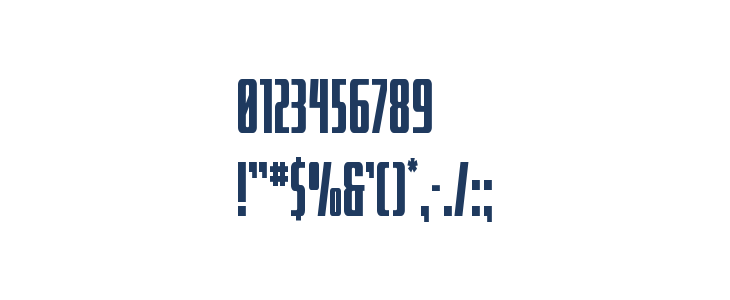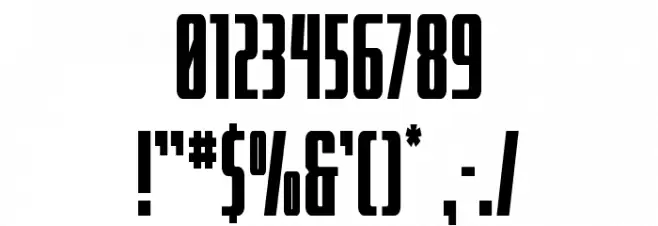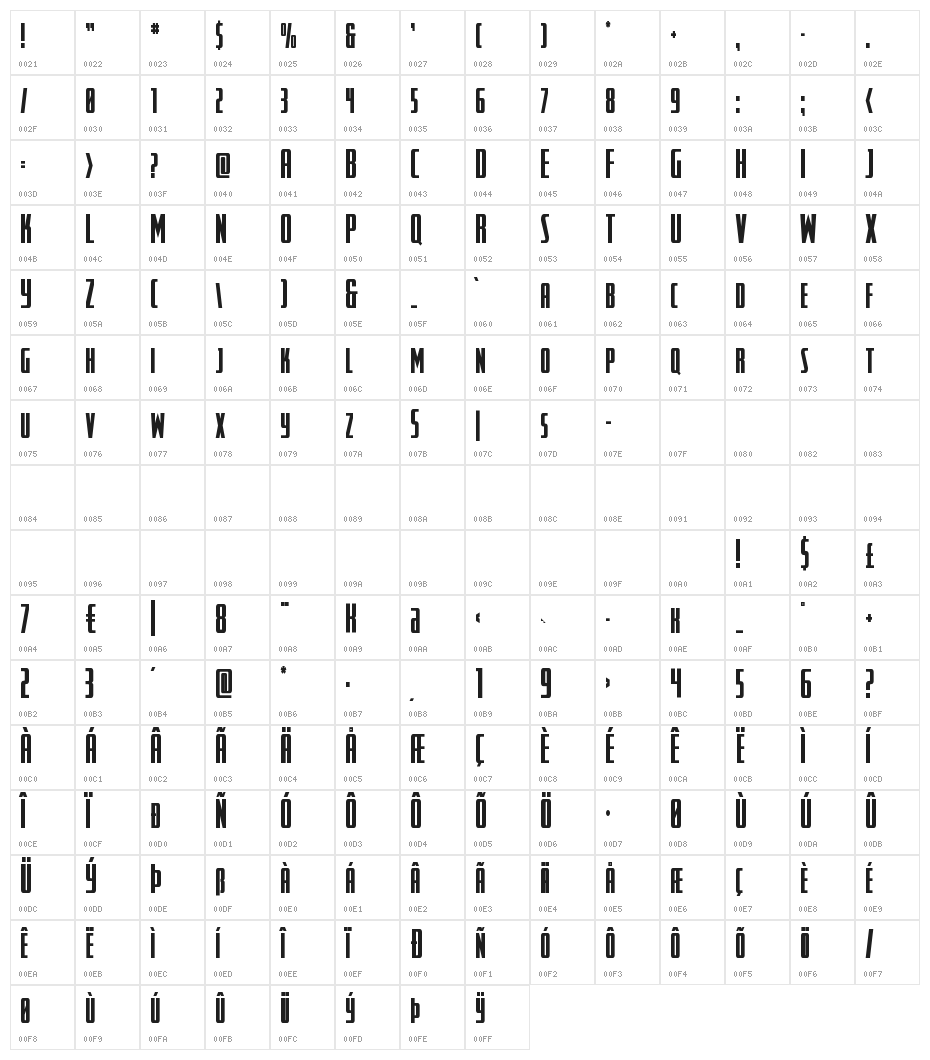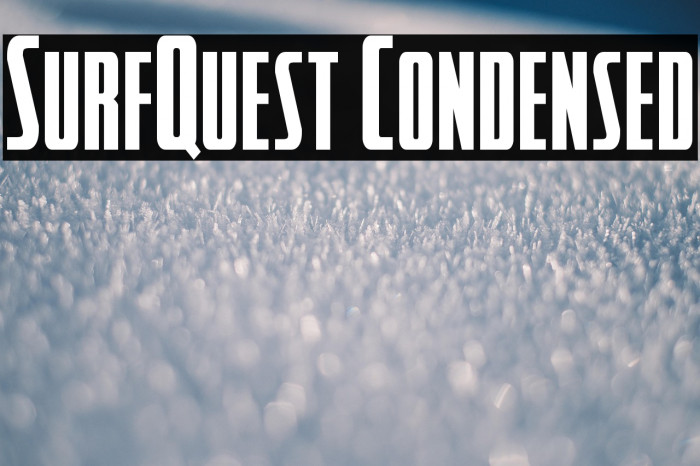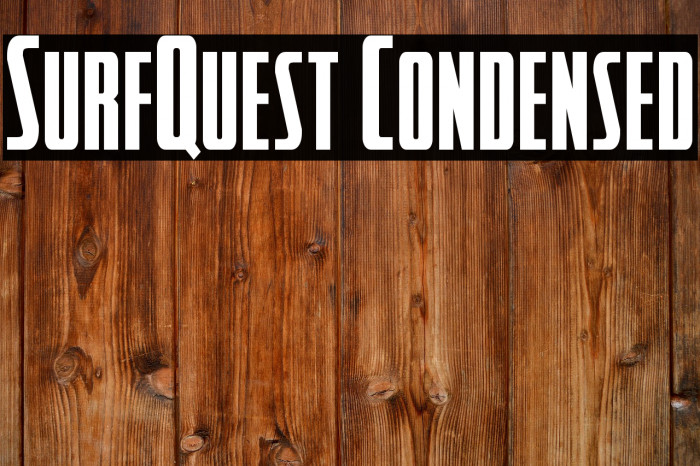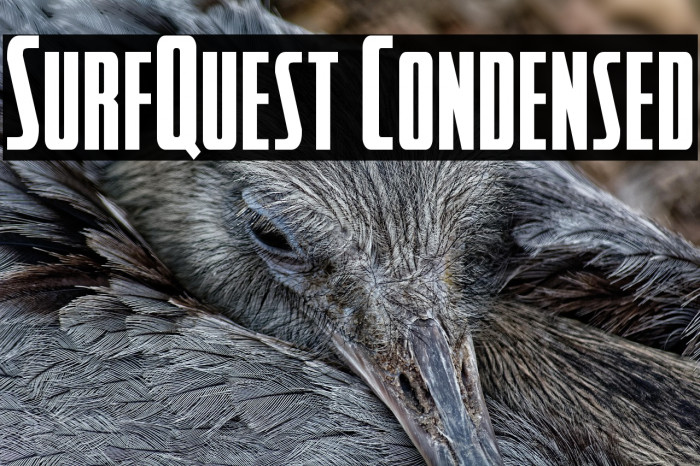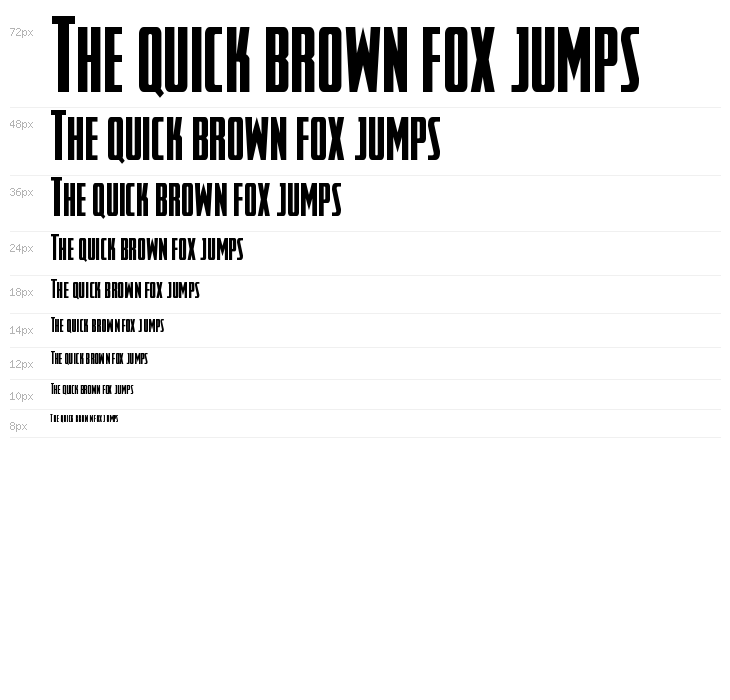
SurfQuest Condensed Font
SurfQuest Condensed Description
This font features a bold and condensed style, characterized by its tall, narrow letterforms that create a striking and impactful appearance. The uppercase letters are uniform in height, with sharp angles and clean lines that convey a sense of modernity and strength. The lowercase letters maintain the condensed style, ensuring consistency across the typeface. The numerals are similarly bold and condensed, making them highly legible and suitable for various design applications. Special characters are included, maintaining the same bold and condensed aesthetic, which enhances the font's versatility. This typeface is ideal for projects that require a strong visual presence and a modern, edgy look.